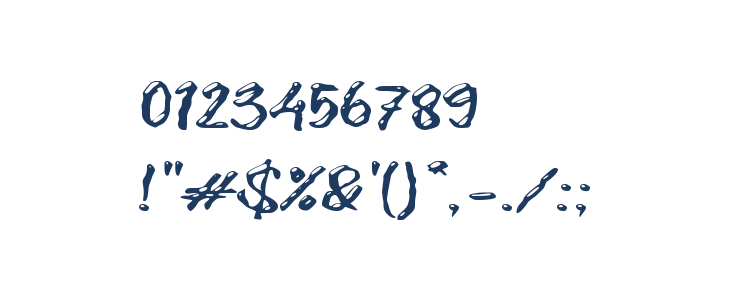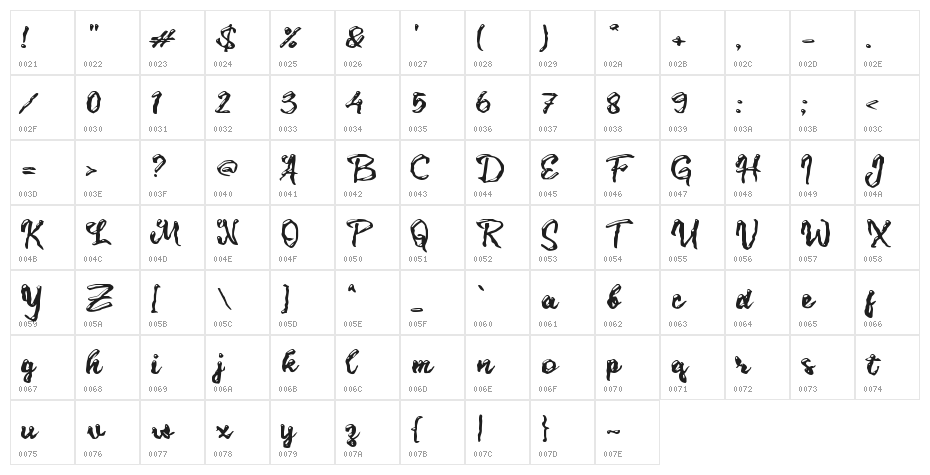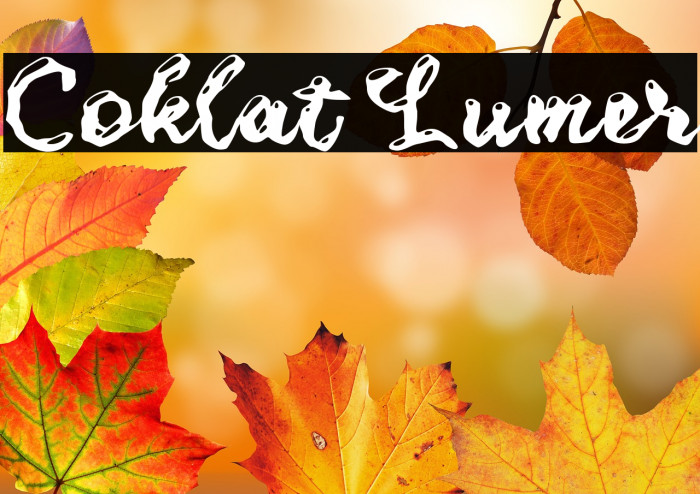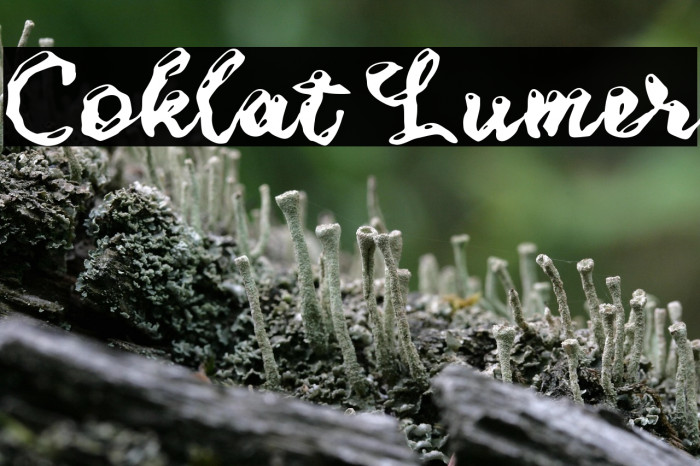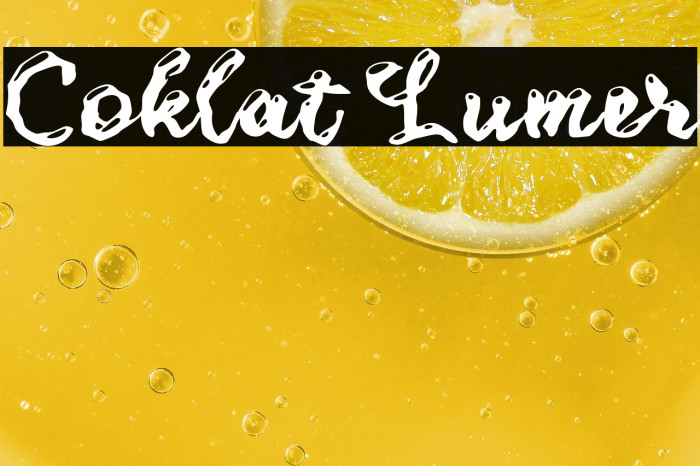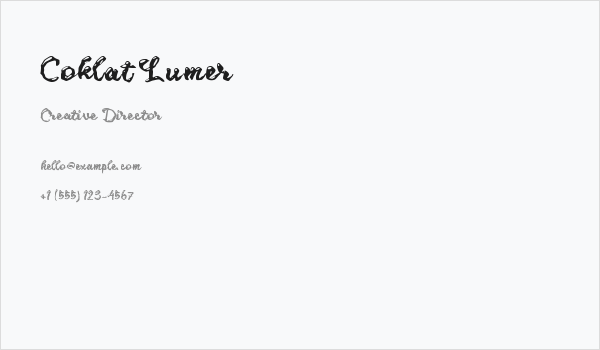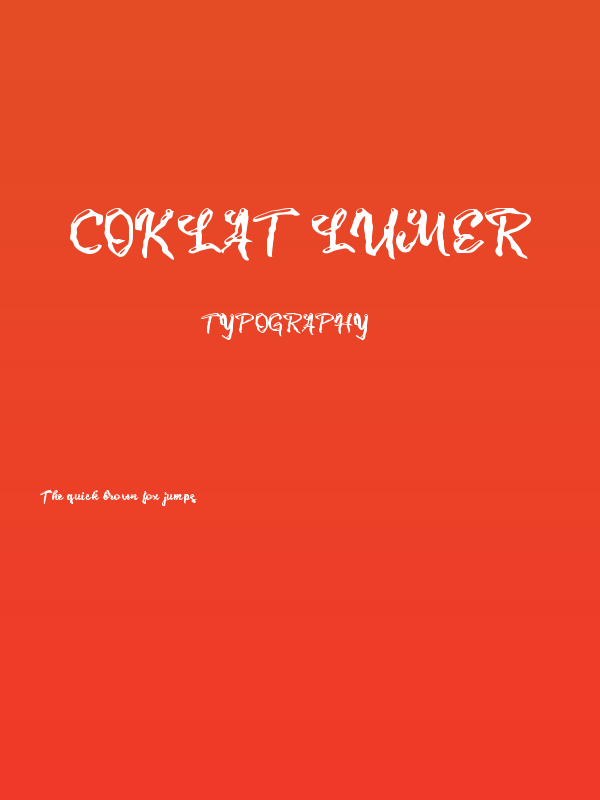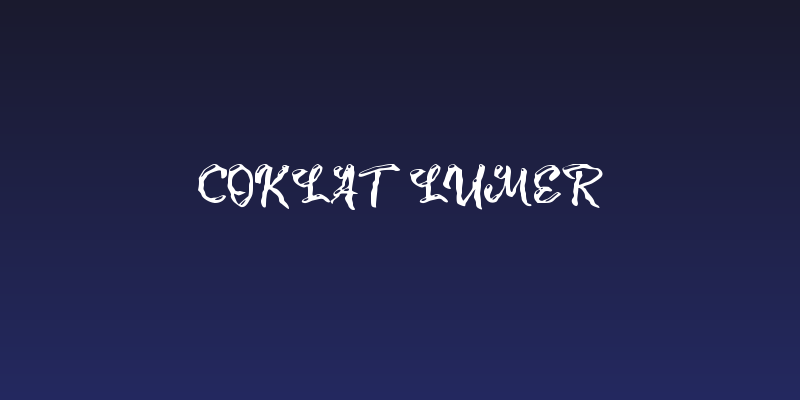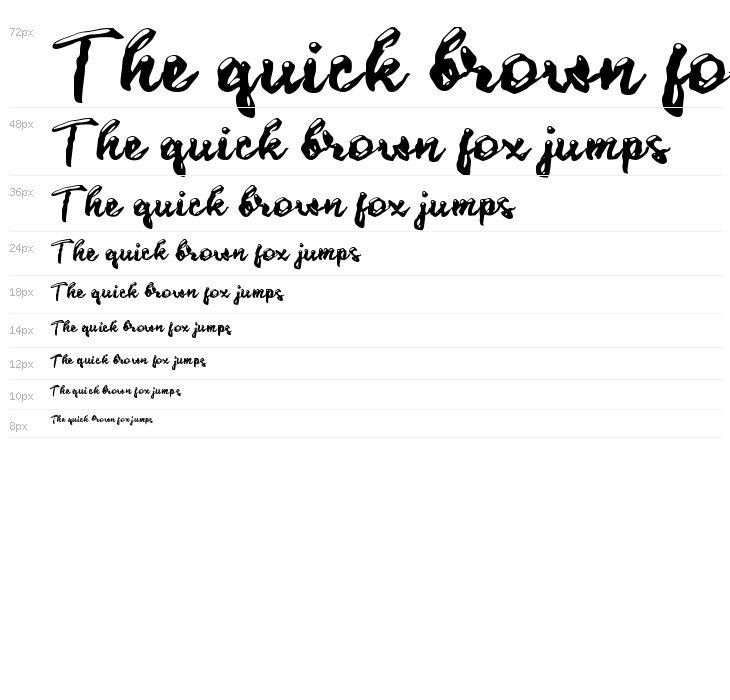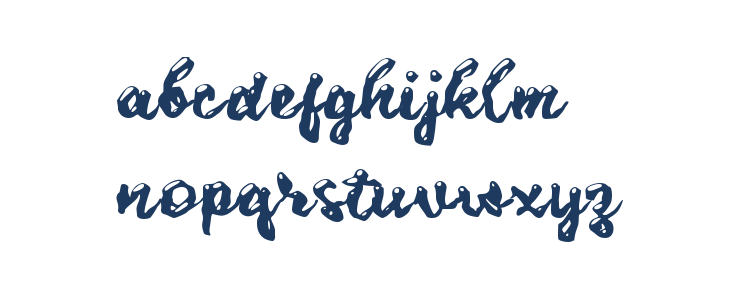
Coklat Lumer Font
Coklat Lumer Description
This font features a playful and dynamic script style, characterized by its bold, flowing strokes that mimic the appearance of melted chocolate. The letters are interconnected, giving a sense of continuity and fluidity. The uppercase letters maintain a consistent height, while the lowercase letters exhibit a slight slant, enhancing the casual and informal feel. The numbers and special characters are designed to match the overall aesthetic, with rounded edges and a whimsical touch. This font is ideal for projects that require a fun and engaging visual appeal.
| Use Case | Logos, Packaging, Headlines |
| Proposed Projects | Ideal for branding, packaging, and promotional materials in the food and beverage industry, especially for chocolate or dessert products. |